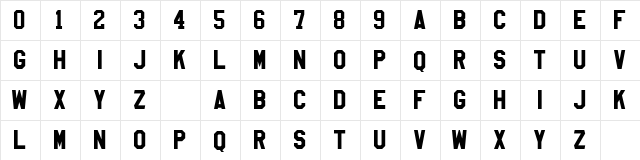
NHL Philadelphia Regular
NHL Philadelphia offers clean, dependable letterforms without strong stylistic allegiance, making it a practical choice for designers who need flexibility.